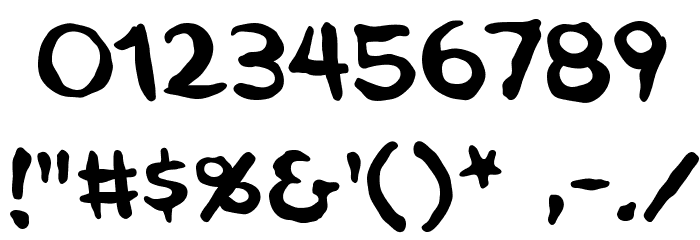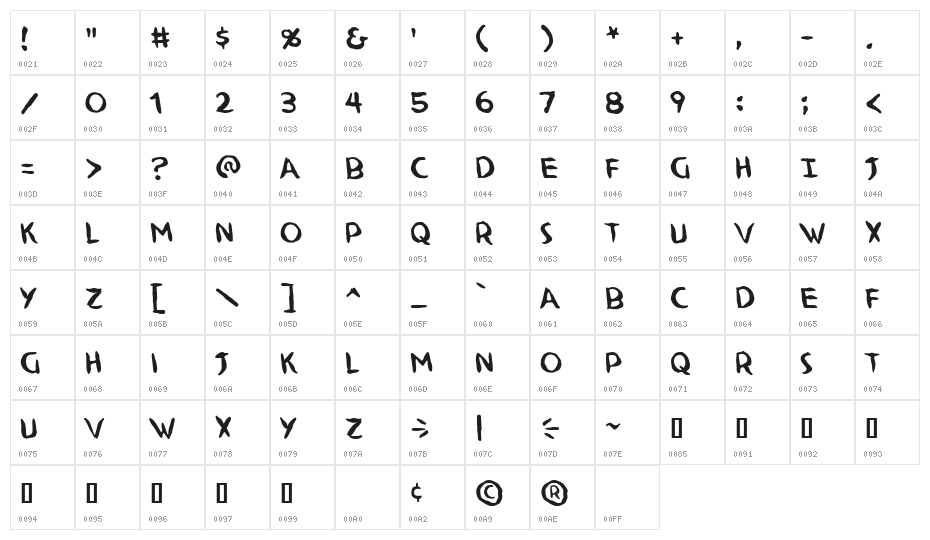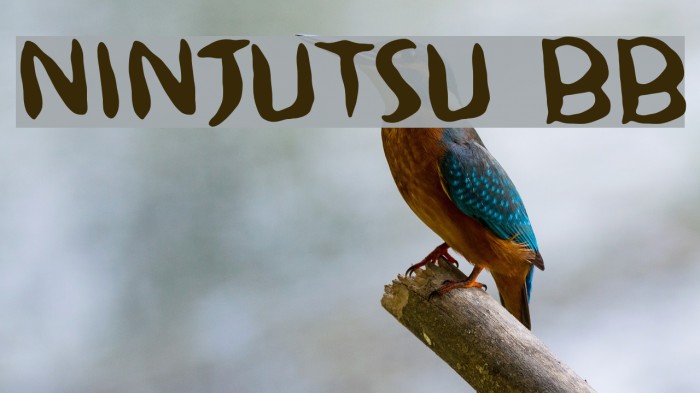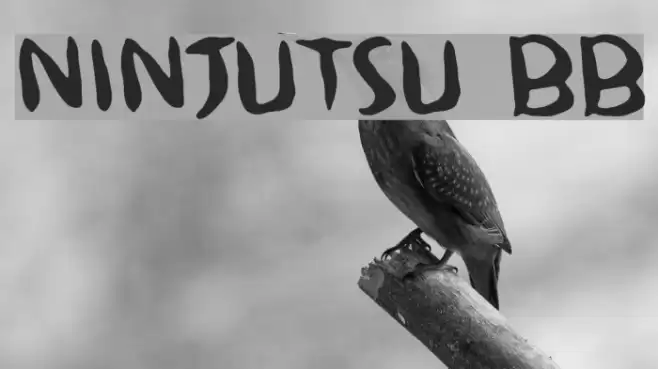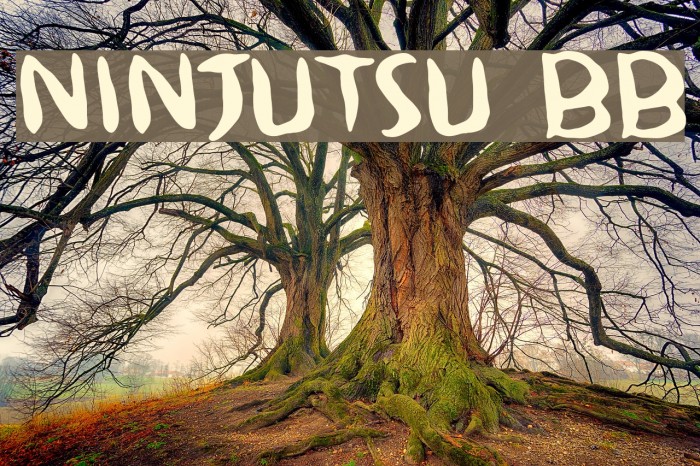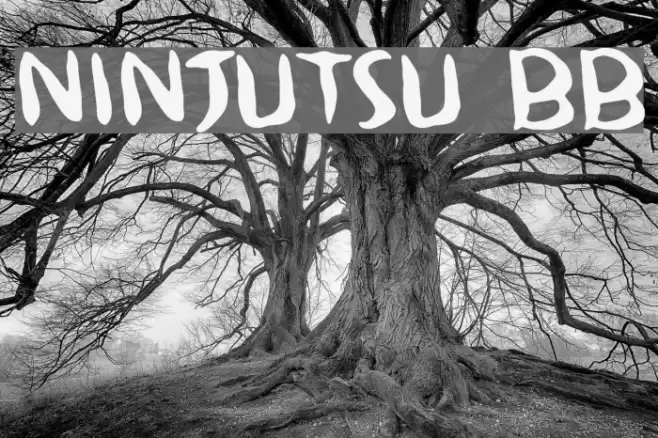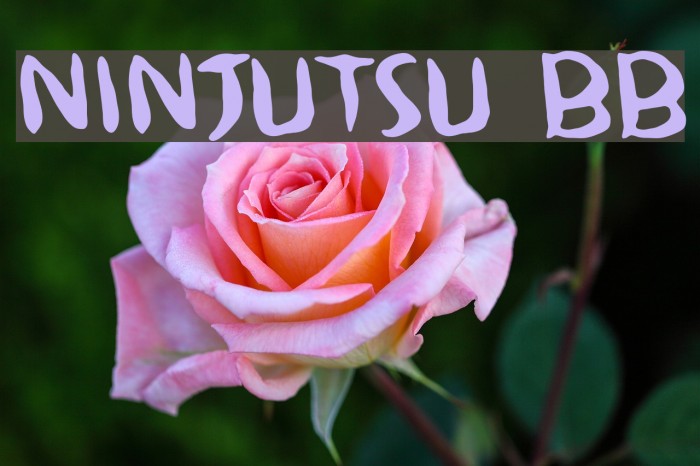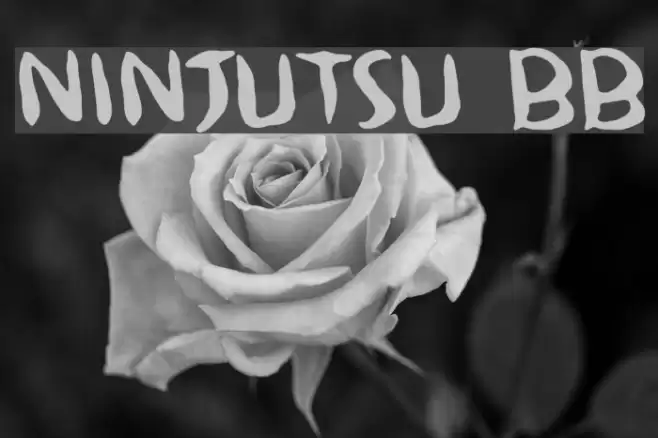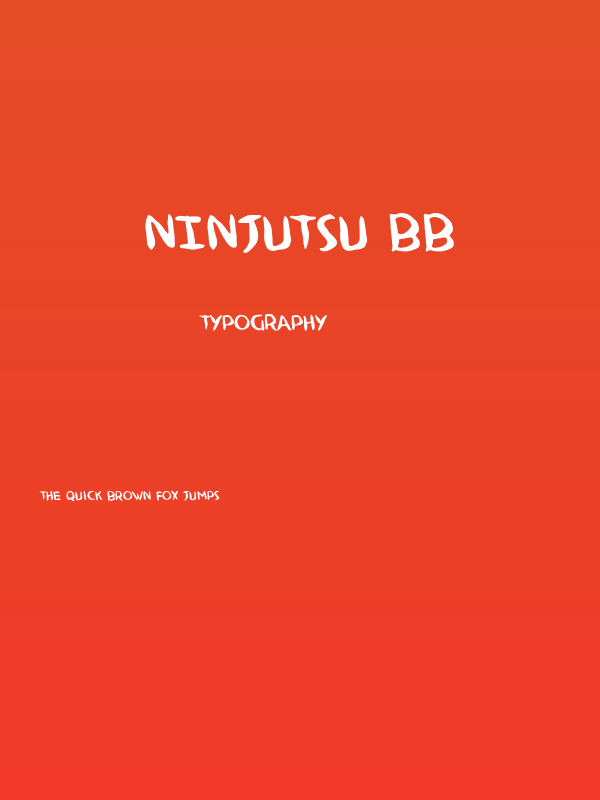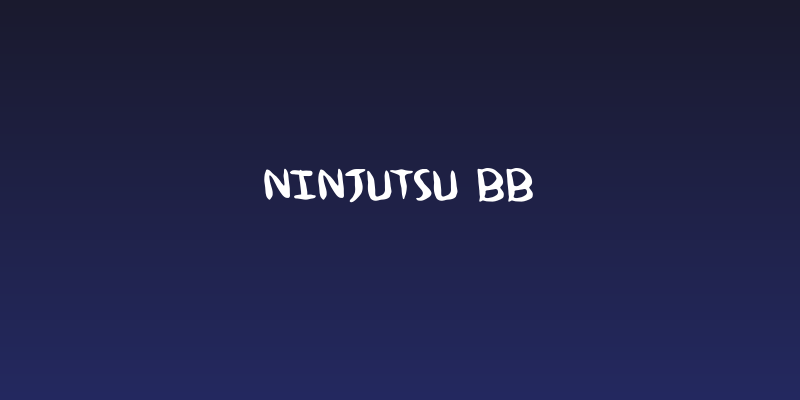
Ninjutsu BB Font
Ninjutsu BB Description
This font exudes a playful and energetic vibe, characterized by its bold and slightly irregular strokes that mimic a hand-drawn style. The letters have a dynamic flow, with varying thickness that adds a sense of movement and spontaneity. The uppercase and lowercase letters maintain a consistent style, with rounded edges and a slightly uneven baseline, enhancing its informal and approachable appearance. The numerals and special characters follow the same design principles, ensuring uniformity across all elements. This font is perfect for projects that require a touch of creativity and fun, making it suitable for children's books, comic strips, or playful branding.
| Proposed Projects | Ideal for children's books, comic strips, playful branding, and creative posters. |